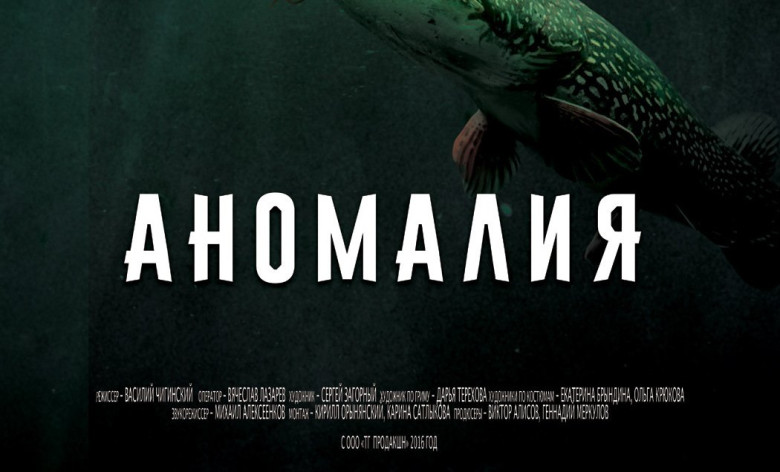
First One Stripe Font Family
Introducing First One Stripe! It is designed and shared by D’ Astakhov. First One Stripe is an Elegant contemporary sans serif font family of 5 fonts. Designed with clean and stylized modern European geometry with harmonious appearance for both texts and headlines. George Sans is perfect companion for branding, editorial and signage, also works great for bigger applications.